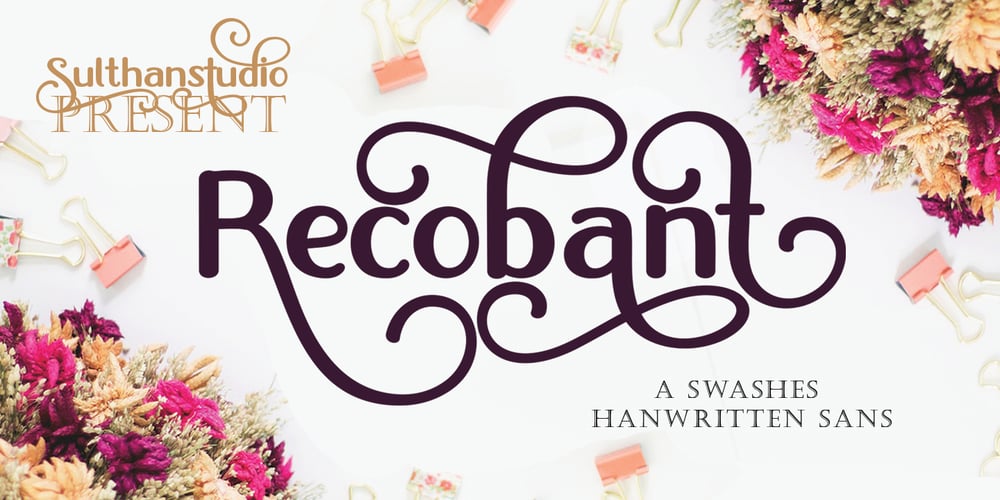
Recobant sans Font Family was designed by Nasrullah and published by Sulthan Studio. Recobant sans contains 1 styles and family package options. Recobant is a very charming and stylish font, and is designed to resemble engraving. It also features ligatures and multi-language support. I have made this font as smooth as possible, reducing the number of nodes in each glyph to ensure optimal cutting with Circut, Silhouette or other craft machines.